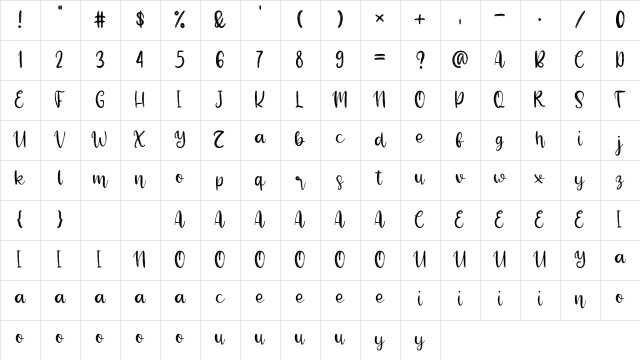
Beauty Sunflower Regular Free Font
Beauty Sunflower Regular
Foundry: Alghul
Designer: Alghul
Design Context for Beauty Sunflower
Beauty Sunflower is a composed and adaptable typeface that performs quietly and consistently across a wide range of design contexts.
Pro Tip: Use Beauty Sunflower in both headline and body roles to test its range before committing to a single application.